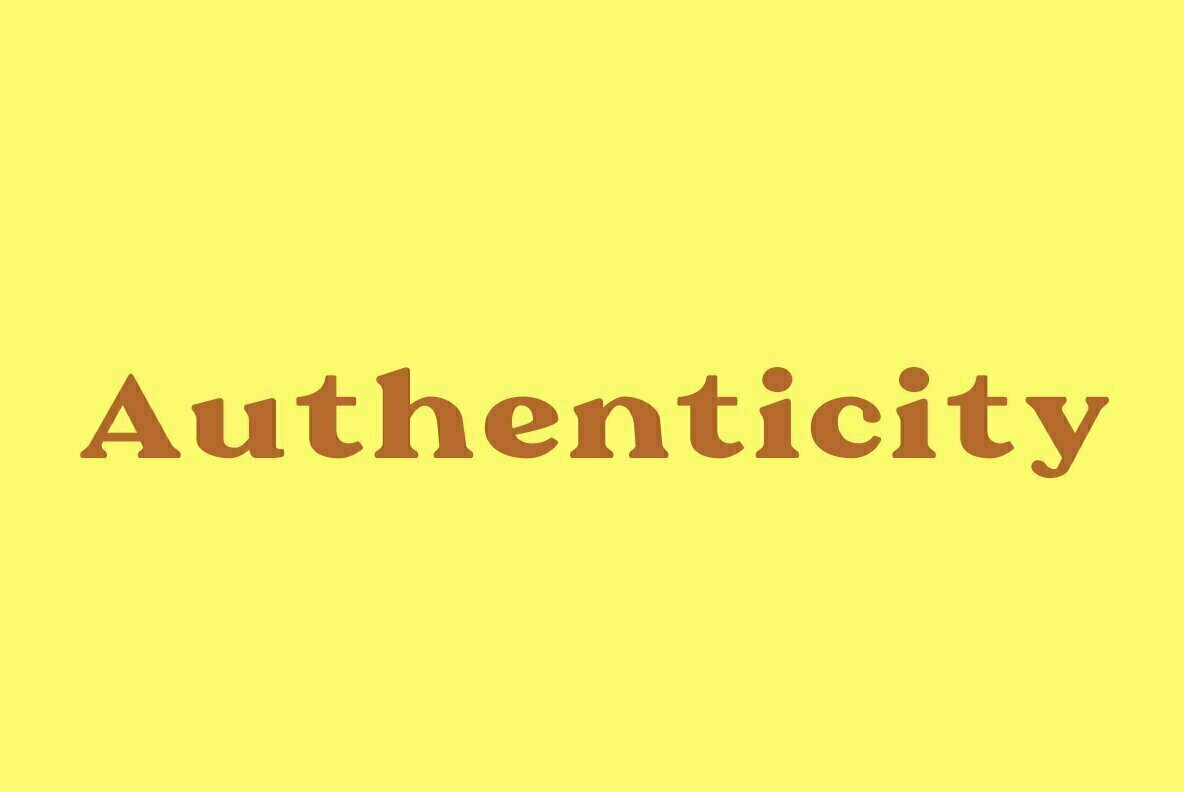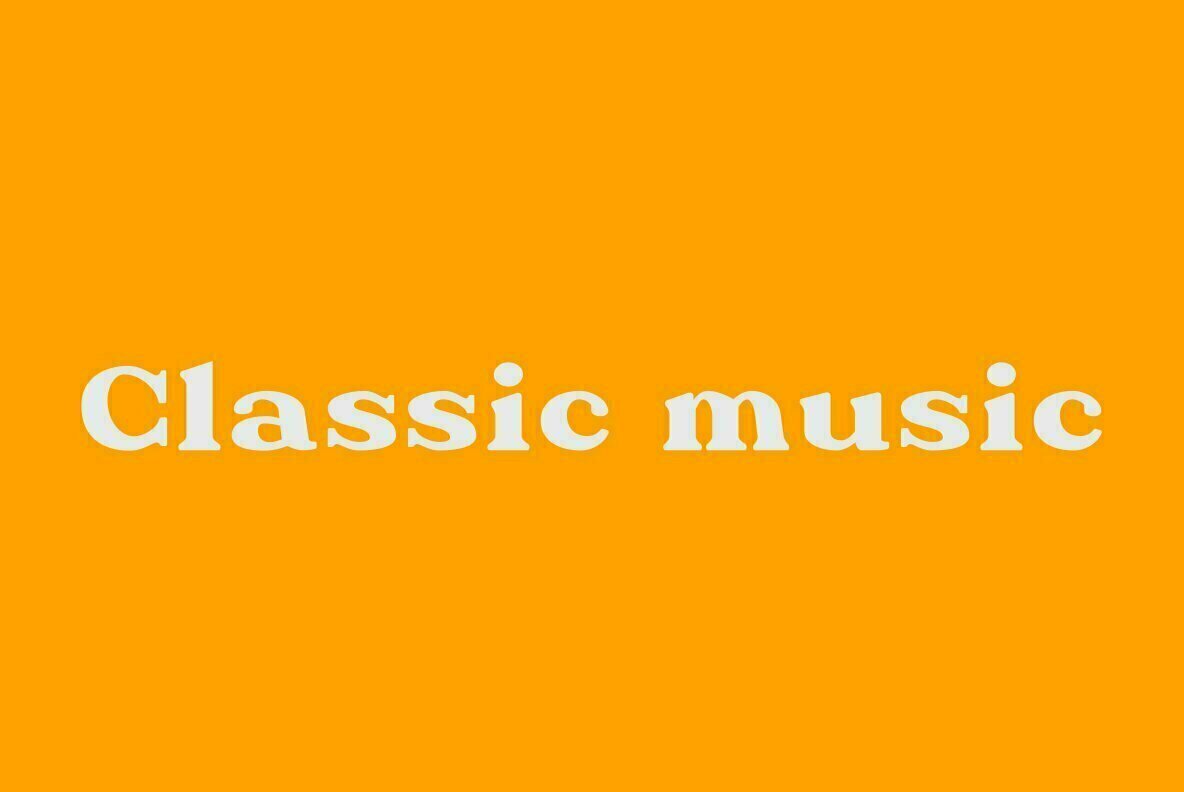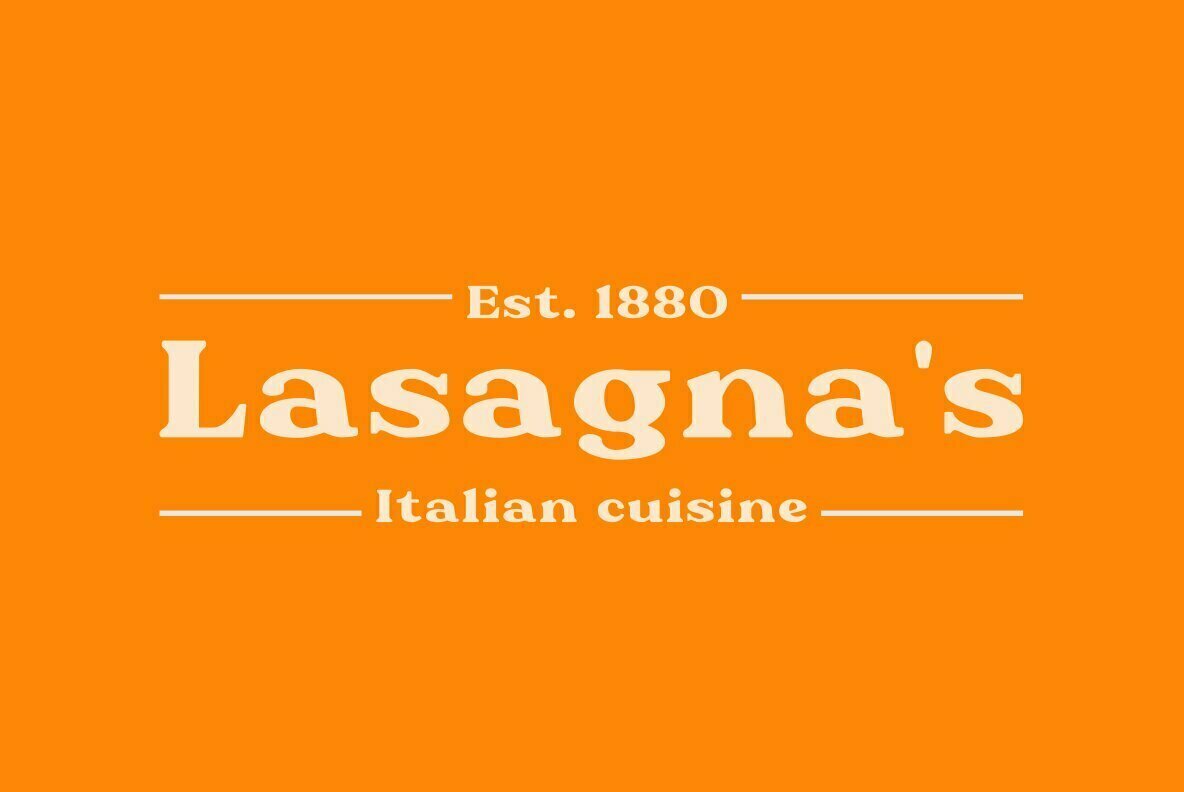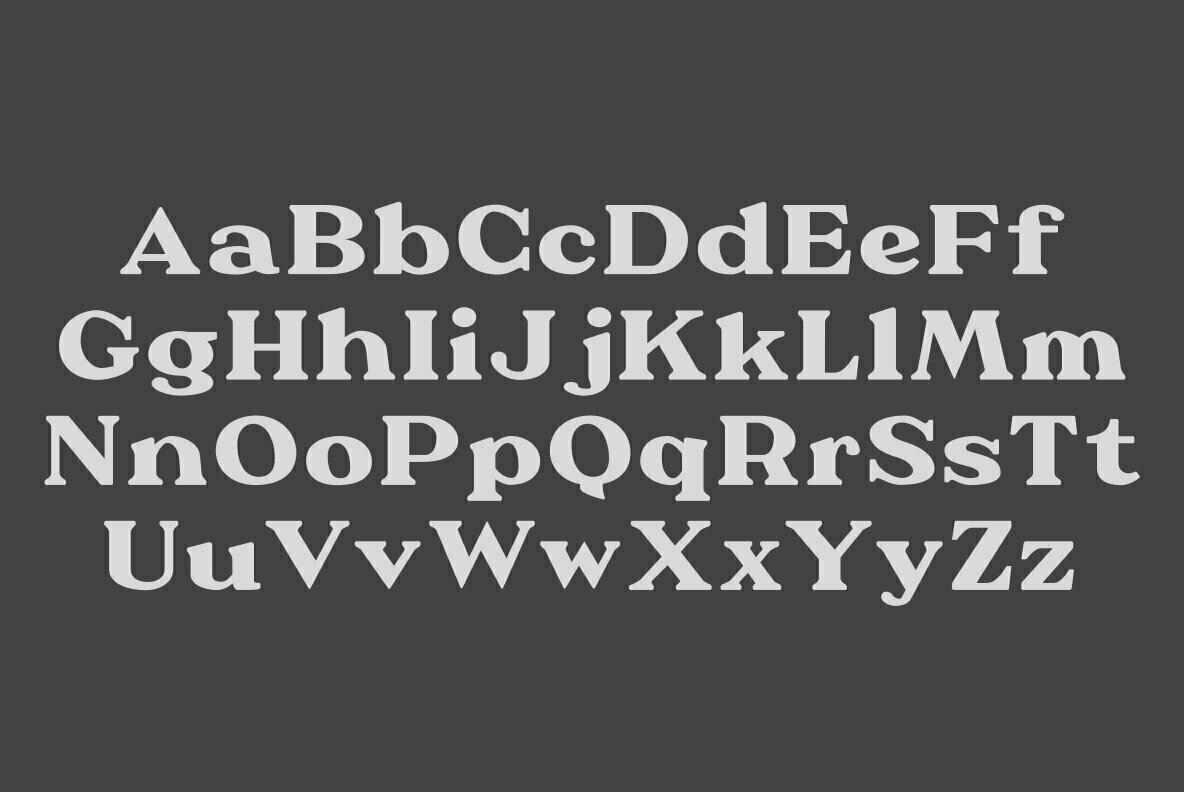
Cocomate Font
Cocomate
Inspired by classic art, Cocomate is the epitome of beauty and strong authenticity that is embodied in the art of typography. Made with the characteristic variations of italic contrast and bold size in the letters. Suitable for use in graphic designs such as logos, labels, packaging and others.